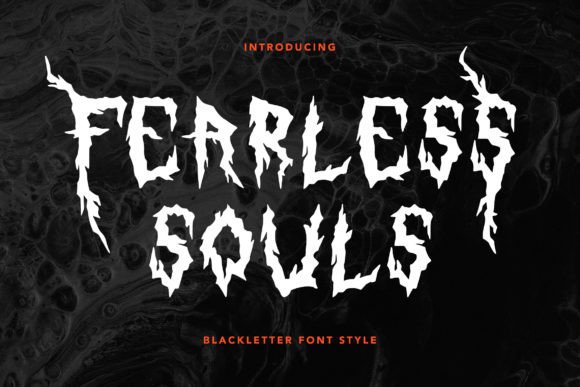
Unleash the captivating aura of Fearless Souls, a display font that breathes life into vintage aesthetics. Crafted by the talented artisans at Hatf Type, this font is not just a collection of letters; it's a gateway to a world of dark mystery and enchanting nostalgia.
With its charismatic curves and edgy strokes, Fearless Souls evokes a bygone era, beckoning you to explore the depths of retro charm. Each character exudes a haunting beauty, reminiscent of weathered billboards and faded movie posters. The font's distinctiveness lies in its ability to evoke emotions, transporting you to a time where imagination ran wild and dreams took flight.
Immerse yourself in Fearless Souls' versatility, a font that seamlessly adapts to a myriad of creative projects. Whether you're designing Halloween invitations, crafting horror-themed posters, or adding a touch of spooky elegance to your digital designs, this font will effortlessly elevate your creations. Its adaptability knows no bounds, allowing you to conjure captivating logos, eye-catching social media graphics, and hauntingly beautiful website designs.
Fearless Souls is your key to unlocking the secrets of the past, a font that speaks to the heart and soul of vintage enthusiasts. Indulge in its enchanting aura, let your creativity soar, and embark on a journey through time with Fearless Souls as your steadfast companion.